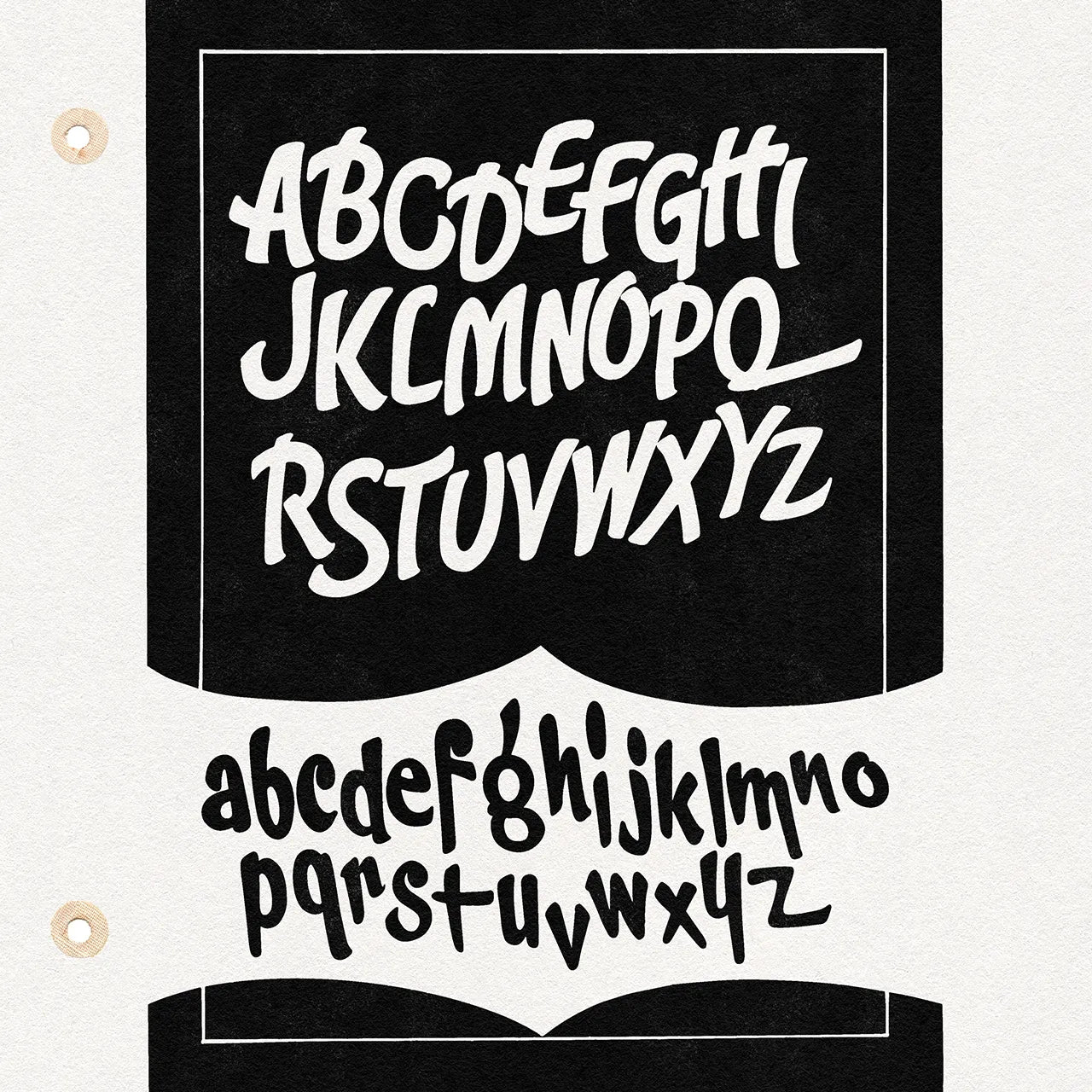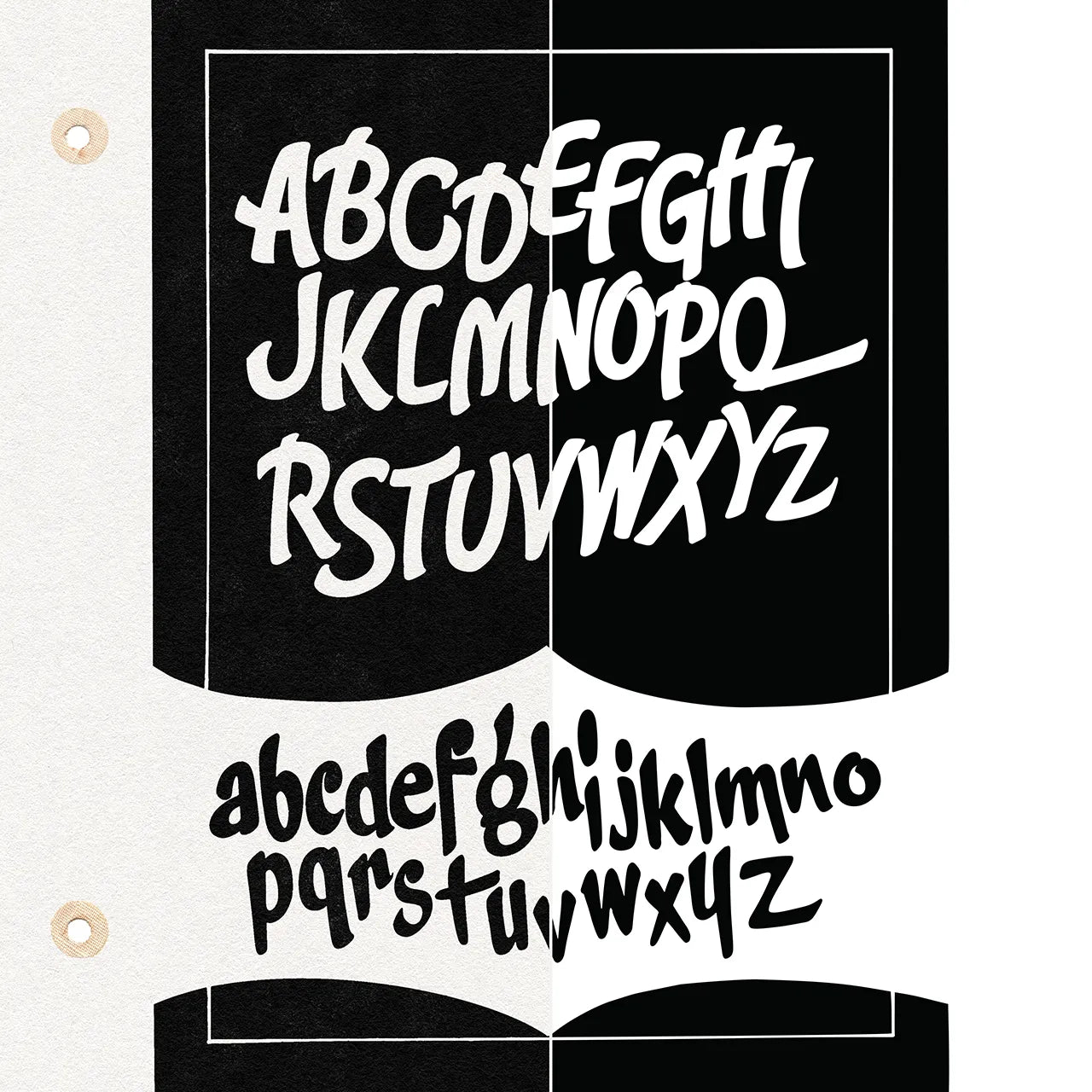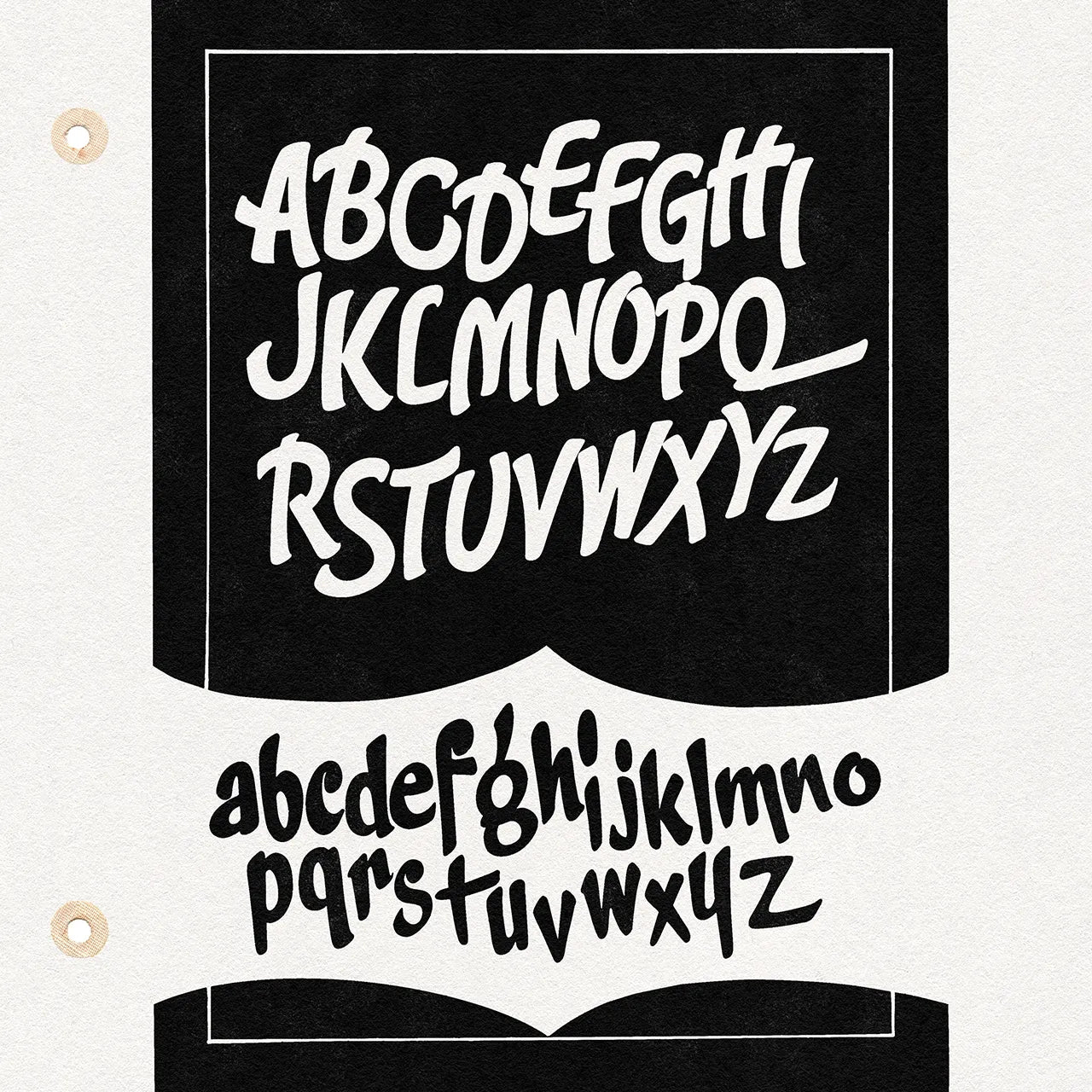
No. 210 - Alf Becker Alphabet
Vectorized from a vintage sign painter's alphabet!
This alphabet has a carefree brush style with lots of swing! It was designed for window signs and special sales cards.
This vector alphabet includes an uppercase and lowercase alphabet hand-lettered by sign painter Alf Becker in 1949.